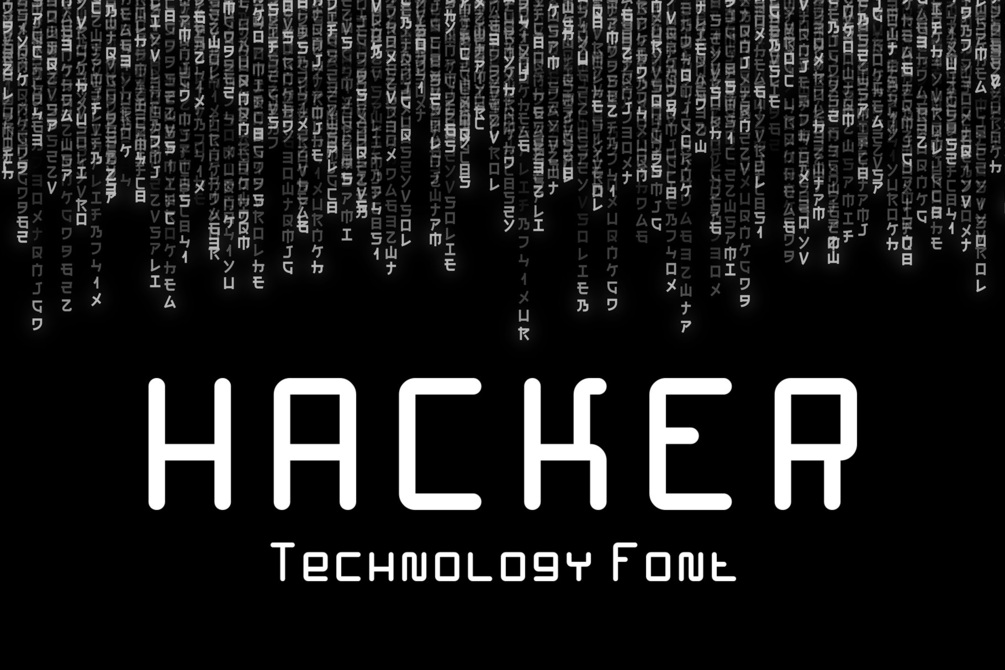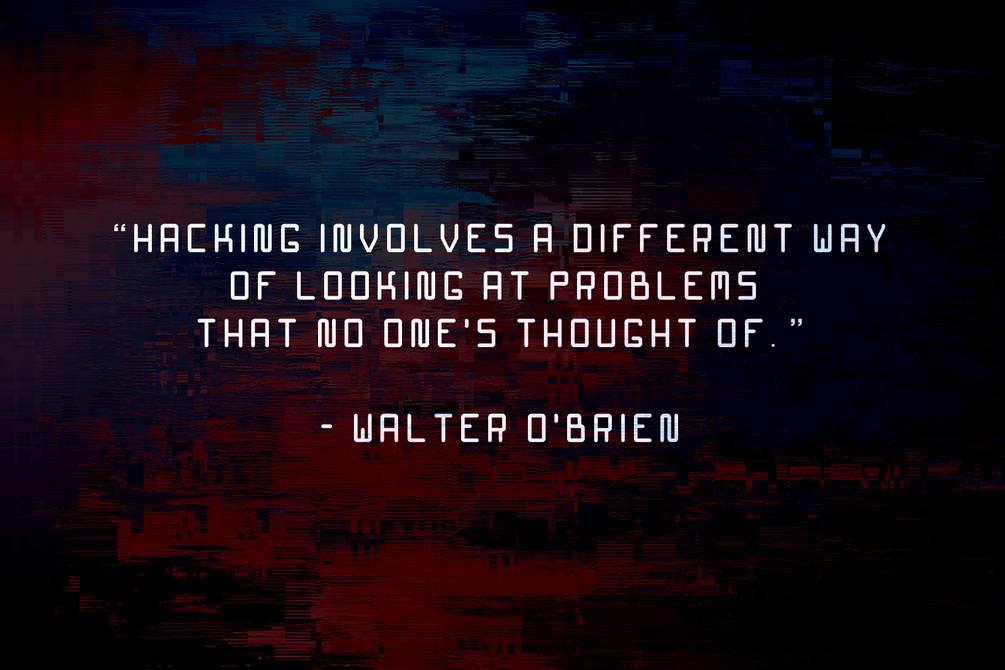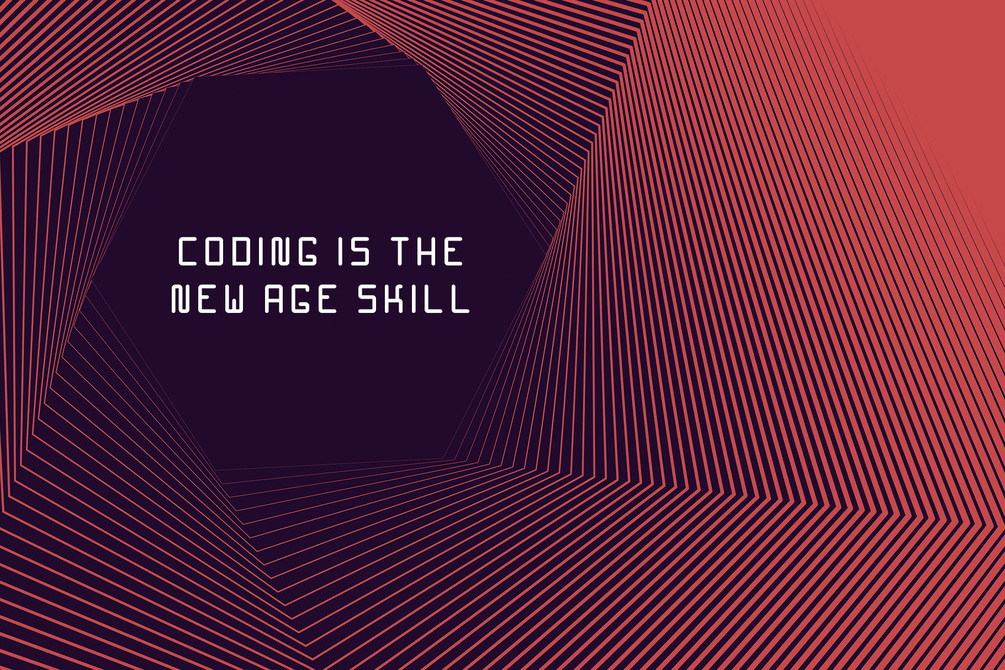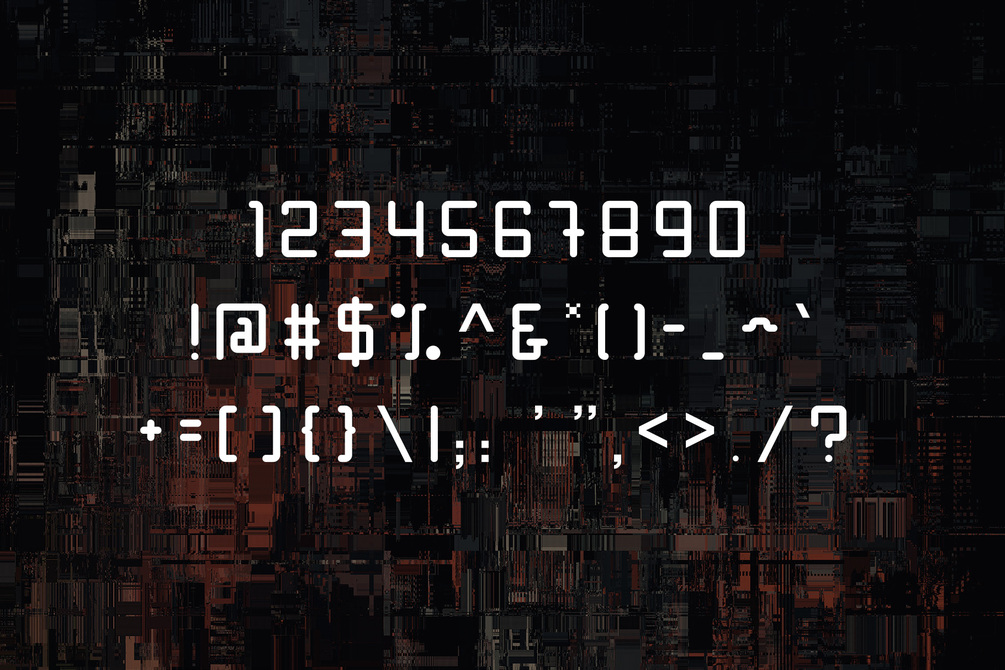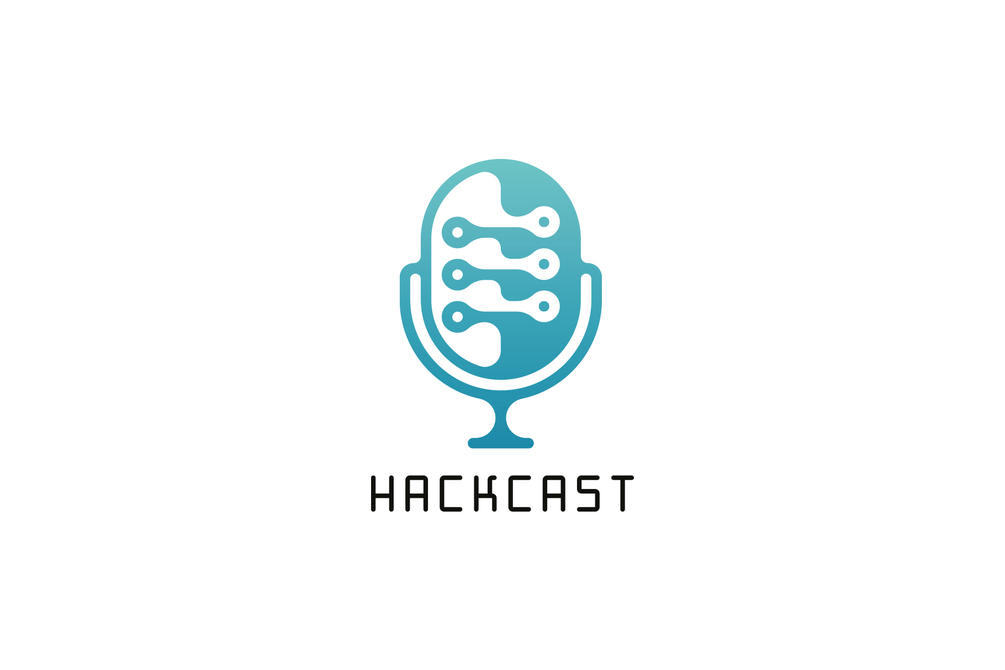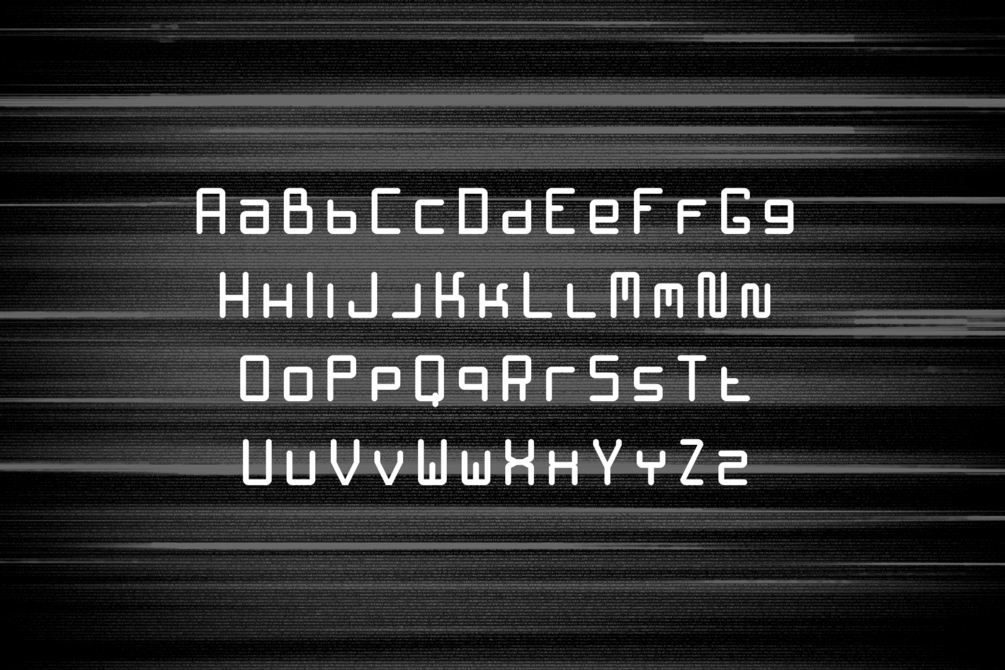
Hacker - Technology Font
Hacker is a rounded display font. The font may remind you of 1980's, when the computer revolution opened up a new frontier. Hacker is very inviting, yet has a distinctive boldness to it making it very appealing.
It can be used for anything related to cyber, security, internet, technology, communication, coding, data, electronics, mathematics, networking, commerce, communication, and much more.